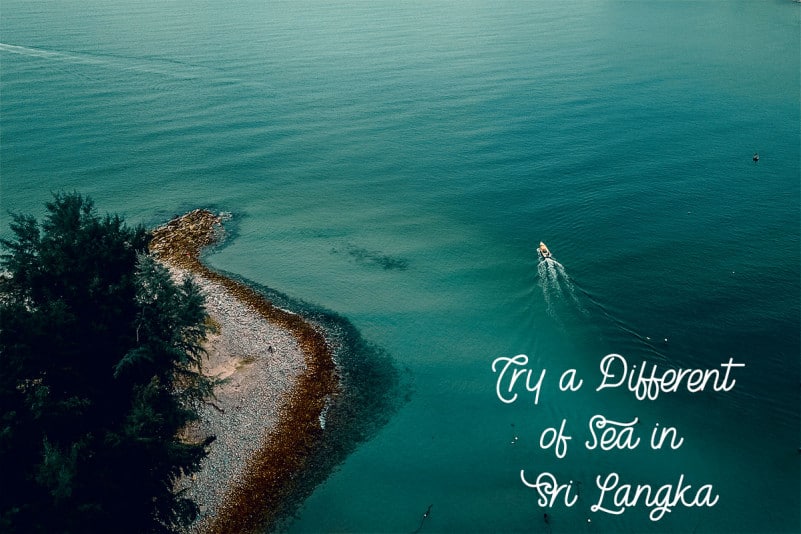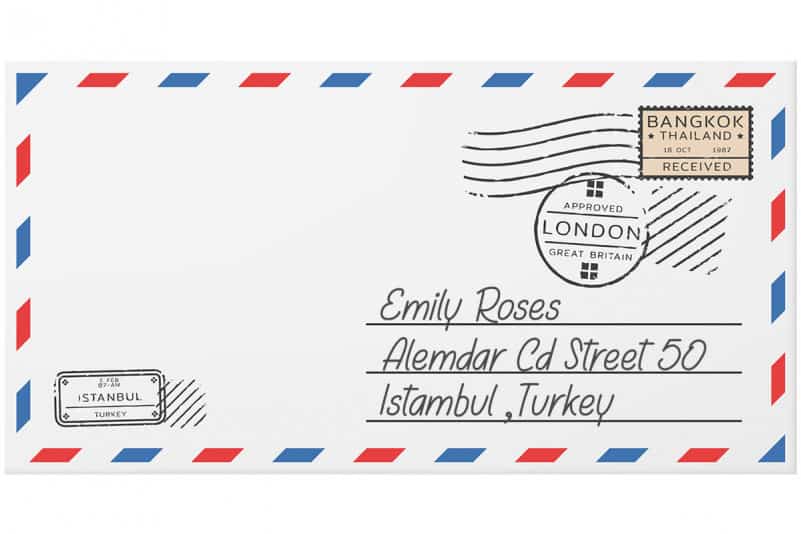
‘Tropical Smoothie Script Font‘ is a natural calligraphy font.
We created this font for modern brands. branding and branding only.
The soft, unique and natural touch gives a different impression, it invites attention to take a closer look at your brand.
Tropical Smoothie Script Font is a font favoured by agencies who like modern branding, you can make a large number of logos with one font because this font is suitable for use in web logos, signatures, portfolios, prints, header, magazine, book cover, t-shirt print, craft, and cosmetic packaging.